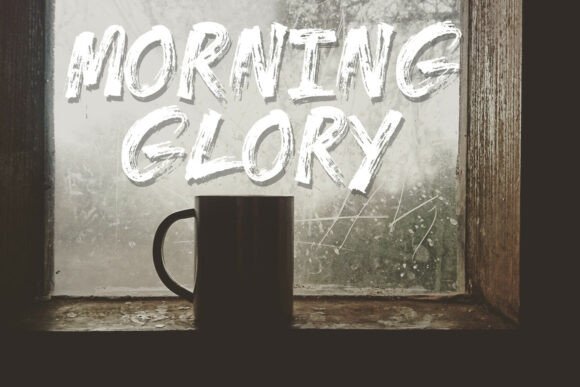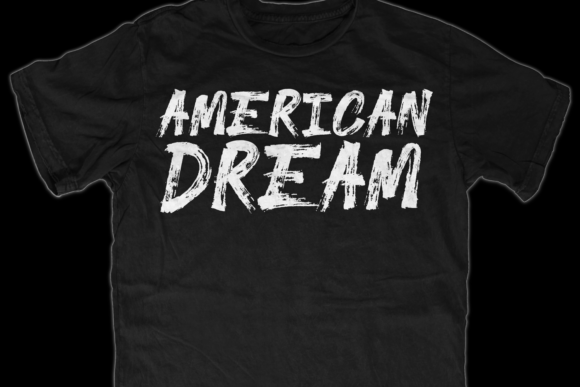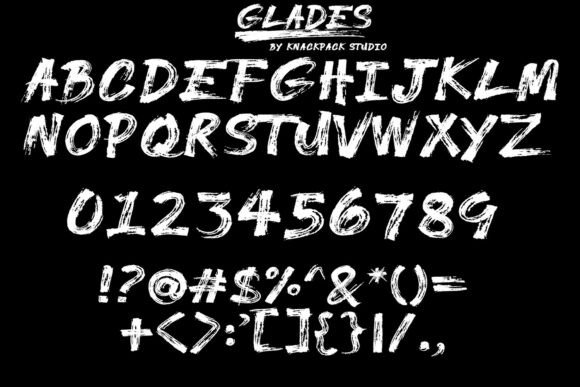
Unleash Your Creativity with Glades Font: The Ultimate Brush Typeface for Bold Designs
Are you tired of using the same old fonts for your designs? Do you want to add a touch of rebellion and edginess to your typography? Look no further than Glades Font, a bold, all-caps brush typeface that’s perfect for creating eye-catching posters, headlines, and branding materials. In this article, we’ll dive into the world of Glades Font and explore its features, benefits, and uses.
What is Glades Font?
Glades Font is a bold, all-caps brush typeface that’s inspired by the spirit of street art and modern grunge design. Its textured, hand-painted strokes give it a unique, handcrafted look that’s perfect for designers and crafters who want to add a touch of personality to their work. With its rugged, edgy feel, Glades Font is ideal for creating designs that need to stand out from the crowd.
Key Features of Glades Font
- Bold and all-caps: Glades Font is a bold, all-caps typeface that’s designed to make a statement. Its large, sturdy letters are perfect for creating eye-catching headlines and posters.
- Textured, hand-painted strokes: The font’s textured, hand-painted strokes give it a unique, organic look that’s reminiscent of street art and grunge design.
- Perfect for posters and branding: Glades Font is ideal for creating posters, flyers, and branding materials that need to stand out from the crowd.
The Benefits of Using Glades Font
So why should you use Glades Font for your designs? Here are just a few benefits of using this amazing font:
- Adds a touch of rebellion: Glades Font’s bold, edgy look is perfect for designers who want to add a touch of rebellion to their work.
- Perfect for grunge and street art designs: If you’re creating designs that are inspired by grunge or street art, Glades Font is the perfect choice.
- Increases visibility: The font’s bold, all-caps letters are designed to grab attention and increase visibility.
- Versatile: Glades Font can be used for a wide range of design projects, from posters and flyers to branding and packaging.
Examples of Glades Font in Action
Glades Font is a versatile typeface that can be used for a wide range of design projects. Here are a few examples of how it can be used:
- Posters and flyers: Glades Font is perfect for creating eye-catching posters and flyers that need to stand out from the crowd.
- Branding and packaging: The font’s bold, edgy look makes it a great choice for branding and packaging materials that need to make a statement.
- Headlines and titles: Glades Font is ideal for creating bold, attention-grabbing headlines and titles for articles, blog posts, and other written content.
Glades Font is a bold, all-caps brush typeface that’s perfect for designers and crafters who want to add a touch of rebellion and edginess to their work. With its textured, hand-painted strokes and rugged, grunge-inspired look, this font is ideal for creating eye-catching posters, headlines, and branding materials. Whether you’re a seasoned designer or just starting out, Glades Font is a great choice for anyone who wants to unleash their creativity and take their designs to the next level.